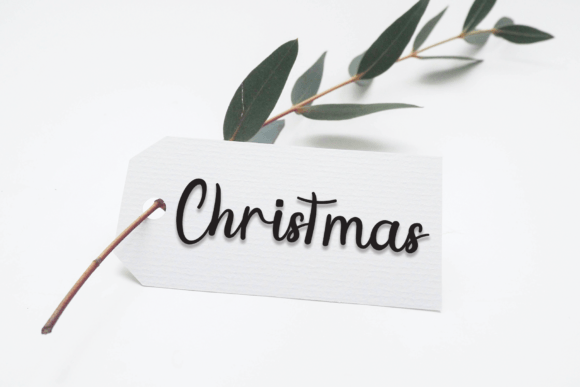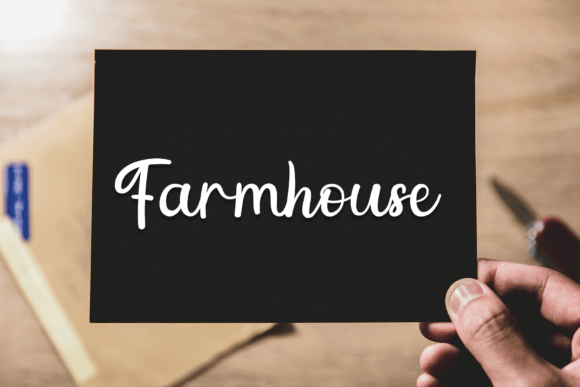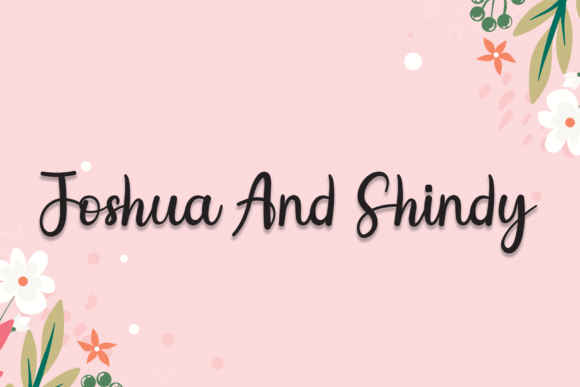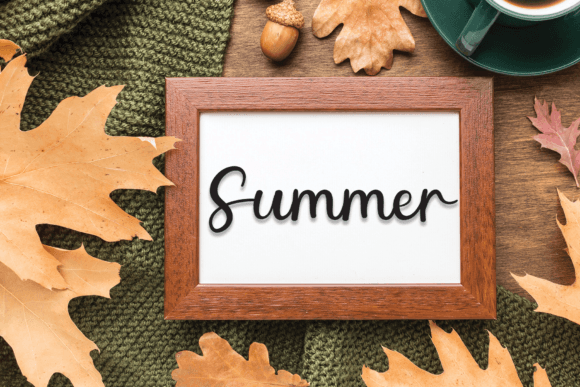
Fishing Fish Font: The Perfect Handwritten Font for All Your Design Needs
Are you tired of using the same old fonts for your designs? Look no further than the Fishing Fish Font, a simple and friendly handwritten font that’s perfect for a variety of projects. Whether you’re a designer, crafter, or DIY enthusiast, this font is sure to become your go-to choice for all your design needs.
What is Fishing Fish Font?
Fishing Fish Font is a beautiful, handwritten font that’s designed to be easy to read and fun to use. Its simple and friendly style makes it perfect for a wide range of projects, from crafts and digital design to presentations and greeting cards. The font’s casual, laid-back vibe is sure to add a touch of personality to any design.
Features of Fishing Fish Font
So, what makes Fishing Fish Font so special? Here are just a few of its key features:
- Simple and Friendly Style: The font’s simple and friendly style makes it easy to read and fun to use.
- Handwritten Look: The font’s handwritten look gives it a personal touch that’s perfect for crafts, DIY projects, and other creative endeavors.
- Versatile: Fishing Fish Font is versatile enough to be used for a wide range of projects, from digital design to presentations and greeting cards.
- Easily Readable: The font is easy to read, even at small sizes, making it perfect for use in a variety of contexts.
Uses for Fishing Fish Font
So, what can you use Fishing Fish Font for? The possibilities are endless! Here are a few ideas to get you started:
- Crafts: Use Fishing Fish Font to add a personal touch to your crafts, such as scrapbooking, card making, and other paper crafts.
- Digital Design: The font is perfect for use in digital design, including social media graphics, blog posts, and website headers.
- Presentations: Add a touch of personality to your presentations with Fishing Fish Font.
- Greeting Cards: Use the font to create personalized greeting cards for special occasions.
Why Choose Fishing Fish Font?
So, why should you choose Fishing Fish Font for your design needs? Here are just a few reasons:
- Unique Style: The font’s unique style sets it apart from other fonts, making it perfect for designers and crafters who want to add a touch of personality to their work.
- Easy to Use: The font is easy to use, even for those who are new to design or crafting.
- Versatile: As mentioned earlier, the font is versatile enough to be used for a wide range of projects.
Tips for Using Fish Font
Here are a few tips for using Fish Font in your designs:
- Use it with Images: The font looks great when paired with images, especially those with a natural or outdoorsy theme.
- Experiment with Colors: The font comes in a variety of colors, so don’t be afraid to experiment and find the perfect color for your design.
- Pair it with Other Fonts: Fishing Fish Font pairs well with other fonts, so feel free to get creative and try out different combinations.
In conclusion, Fishing Fish Font is a simple and friendly handwritten font that’s perfect for a variety of design needs. Its unique style, ease of use, and versatility make it a great choice for designers and crafters of all skill levels. Whether you’re working on a craft project, digital design, or presentation, Fishing Fish Font is sure to become your go-to font.